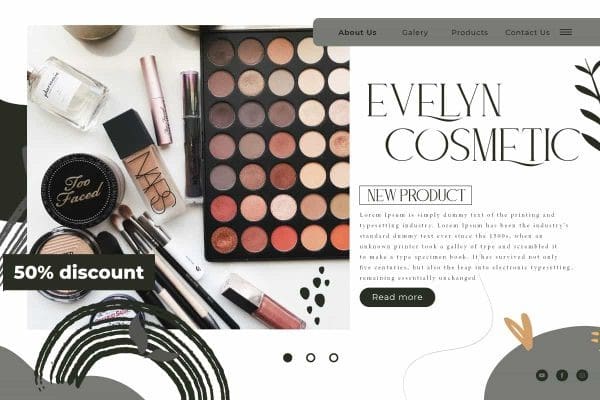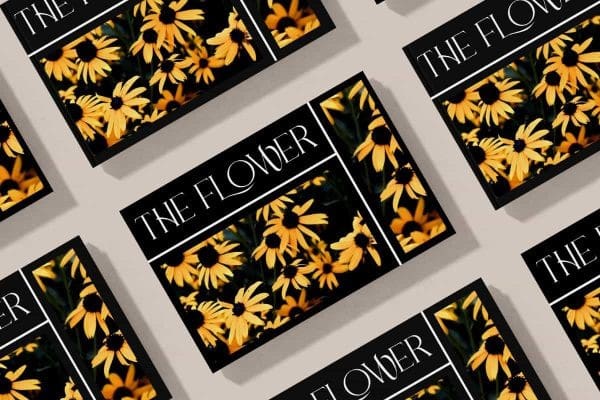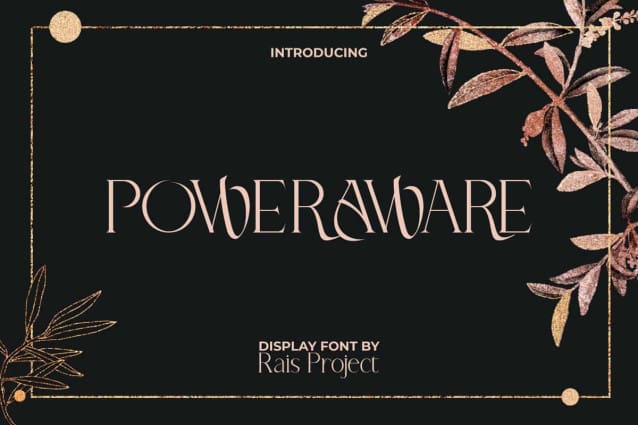
Power Aware Font
Power Aware Font is a beautiful luxurious serif display font. The characters in this font have a unique minimalist style and can provide an fancy appearance. It will be good for any designs, such as brand image, custom design, flyer, invitation, label, magazine cover, marketing material, menu, poster, product packaging, quotes, signage, stationery, website page, and more!
Power Aware Font including a complete set of basic Uppercase and Lowercase characters, Numerals, and large range of Punctuation. This font also include Alternate characters that will be suitable for various industries, such as accessories, advertising, beauty product, café, crafting, event or wedding organizer, fashion, furniture, jewelry, marketing, movie, printing, publishing, real estate, restaurant, spa salon, etc.